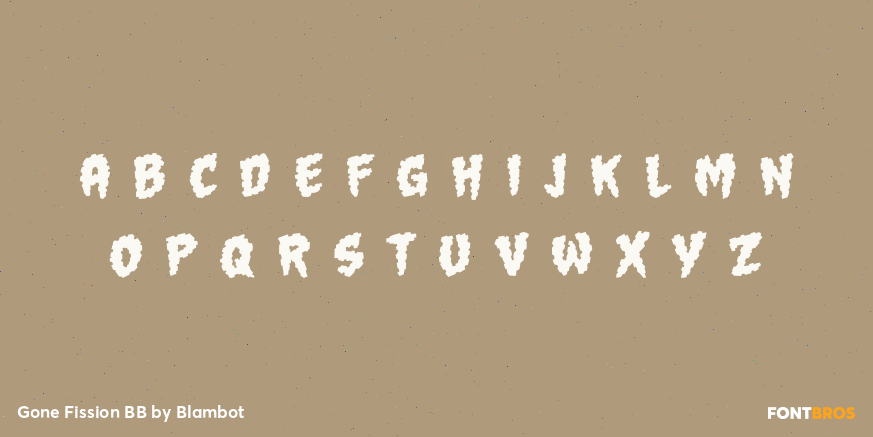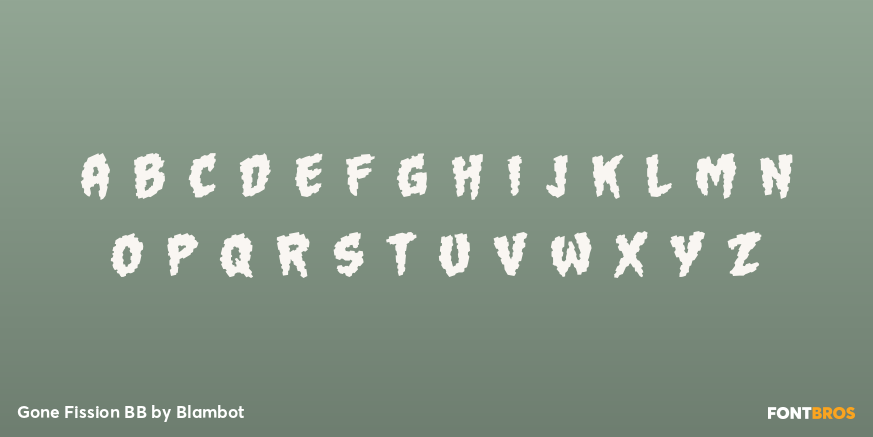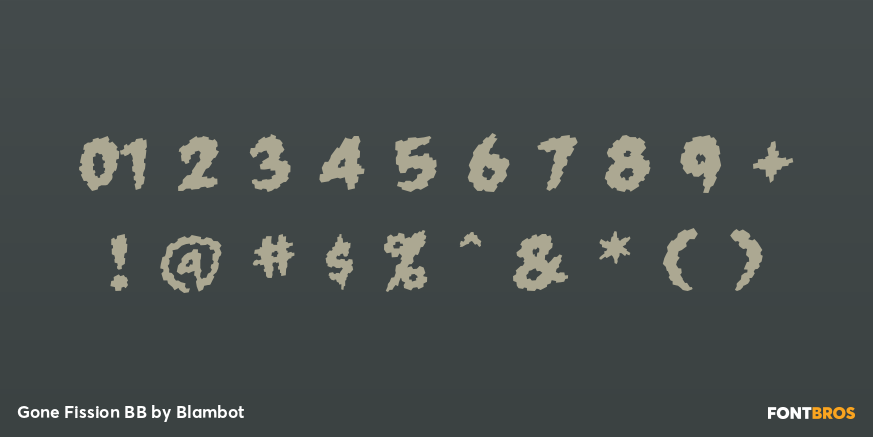
Gone Fission BB
Font Family by Blambot
It's crunchy and explosive. Like Peanut butter mixed with C4. Perfect for exploding planets and nuclear disasters. Comes with Regular and Italic.
The upper/lower keys vary in crunchiness, and as always, this font comes with a kiloton of European characters.